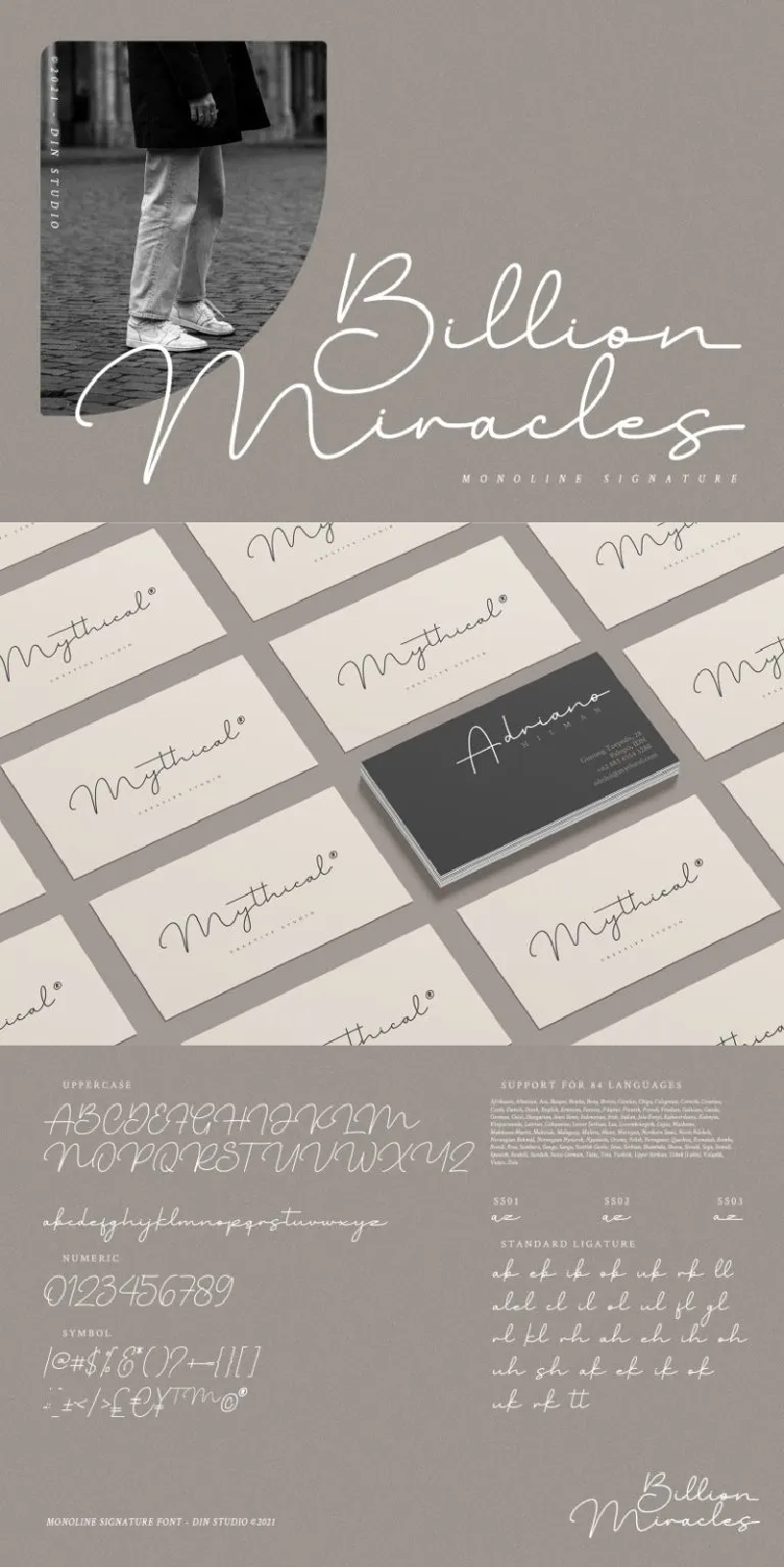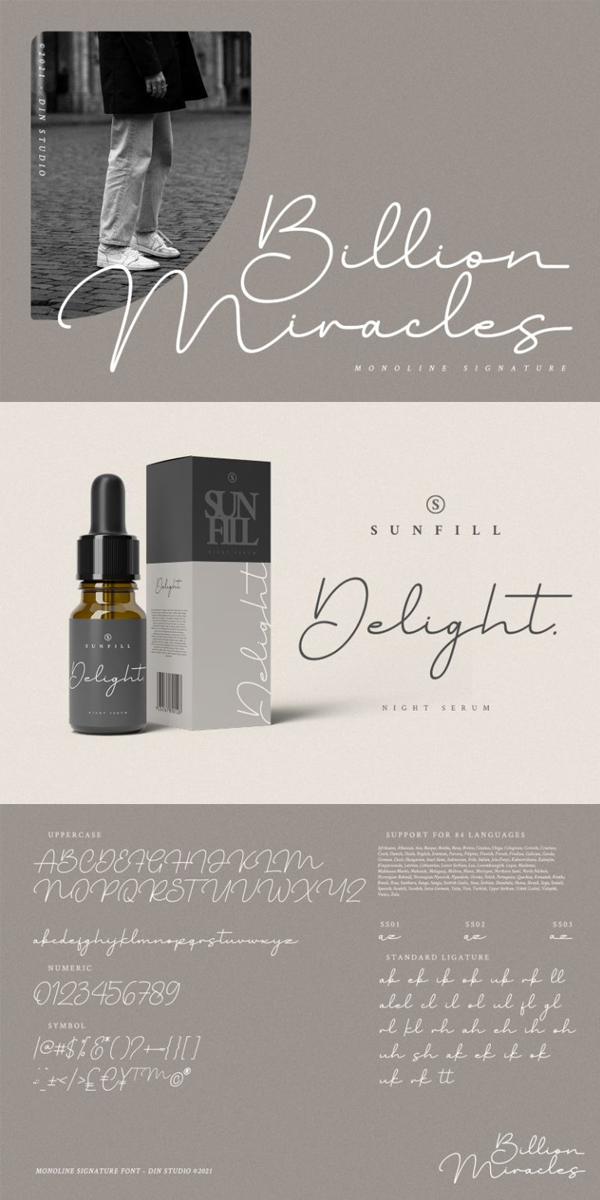
Billion Miracles Font
About Billion Miracles
Introducing Billion Miracles – A Monoline Signature Font
A modern and stylish handcrafted signature font that’ll make your audience swoon and enhance your projects. Every stroke and curve was created to capture the essence of modernity and style. This gorgeous and stylish font can be used for a host of different content needs and projects. Ideal for social media posts and ads, printed quotes, t-shirt designs, packaging, or even as a modern text overlay to any background image.
Billion Miracles includes Multilingual Options to make your branding globally acceptable. See the previews above to get some inspiration on how you can use them.
-Standard Ligatures
-Multilingual Supports (84 languages)